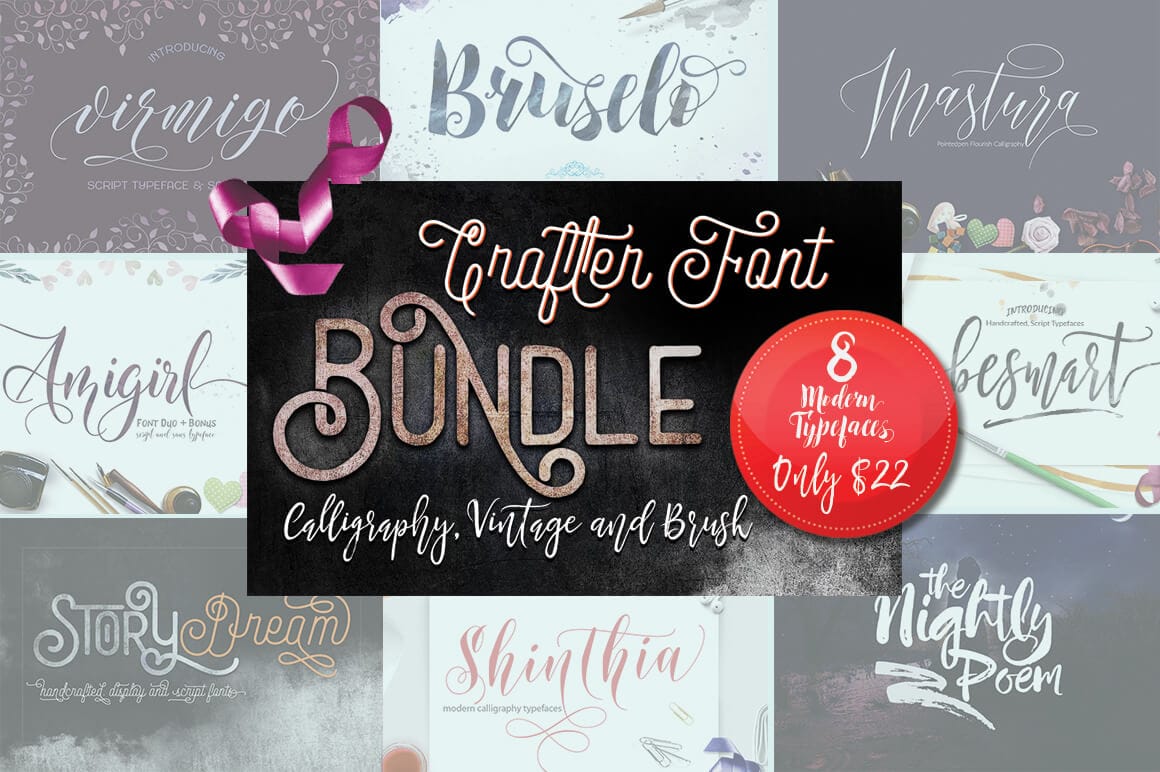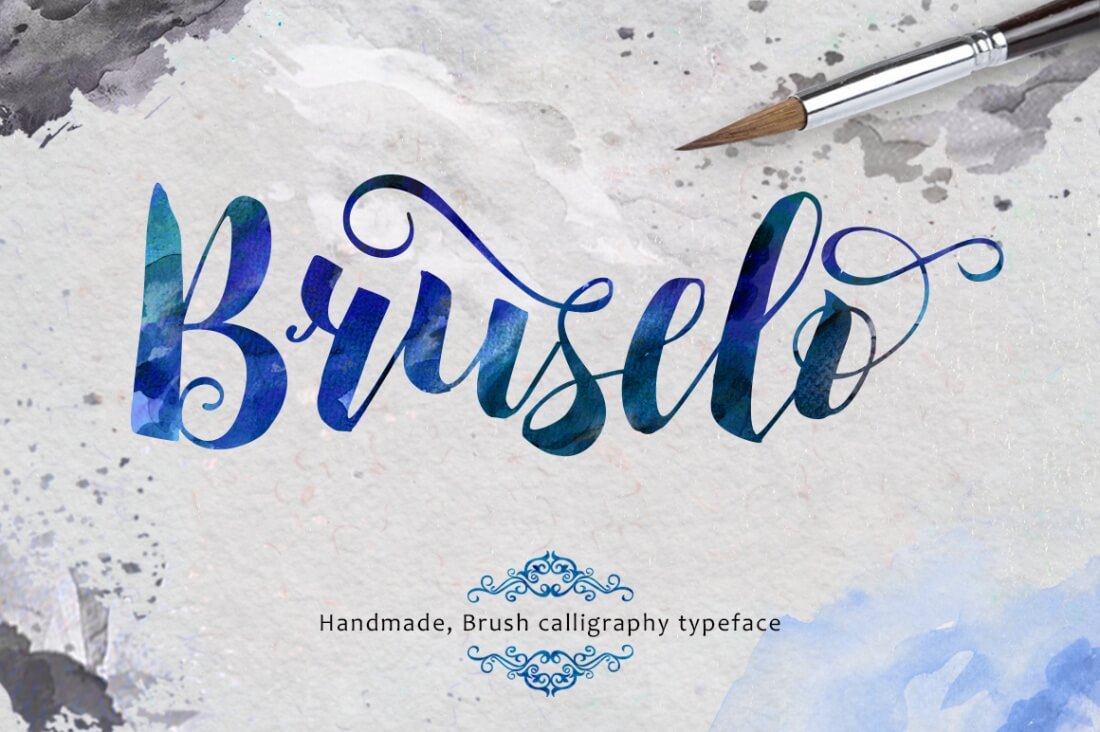
Looking to hone your craft? Then look no further! This Crafter Bundle Mighty Deal from Joelmaker Studio features 9 magnificent typefaces in 1 beautifully discounted package. These hand drawn calligraphy, vintage and brush fonts are the perfect mix of modern and classic, each sporting a variety of features such as Stylistic Alternates, Swashes, Ligatures and more.
Virmigo
- Modern and classic calligraphy font.
- Perfect for logos, T-shirts, quotes, invitations, notecards, product packaging and more.
- OpenType Features include: Stylistic Alternates, Swash, Stylistic Set, Initials, and Contextual Alternates.
- Features 650 glyphs, as well as punctuation, numbers and multilingual support.
Be Smart Script
- Handmade brush font.
- Create custom dynamic text.
- Beautiful choice for invitations, headers, product packaging, printed quotes, mugs, tote bags and more.
- Stylistic Alternates swashes, Contextual Alternates, Titling Alternates and Ligatures.
- Includes basic Latin Uppercase and Lowercase letters, numbers and symbols.
Amigirl
- Duo font set of Script and Sans Brush.
- Modern calligraphy typeface with smooth lines, pointy-edged pull pens and a blend of classic and modern elegance.
- Multilingual support for 19 languages.
- Amigirl Script features 433 unique glyphs.
- Perfect font for projects such as: signatures, logos, correspondence, signage, newsletters, posters, badges and more.
- Font features include: Stylistic Alternates, Standard Ligatures, Discretionary Ligatures, Swashes and Stylistic Sets.
- Bonus: Colorful collection of vector illustrations, ornaments and patterns.
Nightly Poem
- Formed from a soft bristle brush.
- Modern classic typeface with a touch of elegance.
- Multilingual support for more than a dozen languages from Albanian to Italian and all the European languages based on the Latin alphabet.
- Features include Standard ligatures, Stylistic Alternates and Swashes.
- Use Nightly Poem for a variety of projects such as: titles, T-shirts, mugs, bags, stationery, signs, letterhead, labels, logos and more.
Mastura
- Elegant blend of classic and modern calligraphy.
- Smooth lines and pointy-edged pull pens.
- 533 unique glyphs.
- Supports more than 15 different languages.
- OpenType Features: Contextual Alternates, Standard Ligatures, Swashes, Stylistic Alternates and 8 Stylistic Sets.
- Fabulous font choice for addressing invitations, signs, letterhead, wedding invites, logos, signatures, titles, labels and more.
Shinthia Script
- Smooth, modern and classic hand-drawn calligraphy font.
- Use this wavy typeface for a variety of purposes including titles, signatures, signage, printed quotes, product packaging, headers and so much more.
- Shinthia Script sports some 529 unique fonts.
- Features include Initials, Stylistic Sets, Swashes, Ligatures and Stylistic Alternates.
- Supports multiple languages.
Story Dream
- 2 typefaces in 1 deal: Handcrafted display and script typefaces.
- Beautifully unique and modern.
- Great for screen printing T-shirts, logos, branding, trademarks, greeting cards, flyers, magazine titles and more.
- Over 750 glyphs in total – Story Dream Script: 484 glyphs, Story Dream Display: 300 glyphs.
- Standard Ligatures, Discretionary Ligatures, Stylistic Sets, Swashes and Ornaments.
Bruselo
- Modern brush font.
- Created with stylish smooth hands through a soft fur brush.
- Classic meets modern and mixes with true elegance.
- Features include Contextual Alternates, Standard Ligatures, Swashes, Stylistic Alternates and Stylistic Sets.
- Multilingual support.
- Use on everything from signatures to correspondence to badges.
Flourish
- Modern and classic calligraphy font.
- Perfect for logos, quotes, product packaging, greeting cards and more.
- Contains a full set of lowercase & uppercase, a large range of punctuation, numerals, and multilingual support.